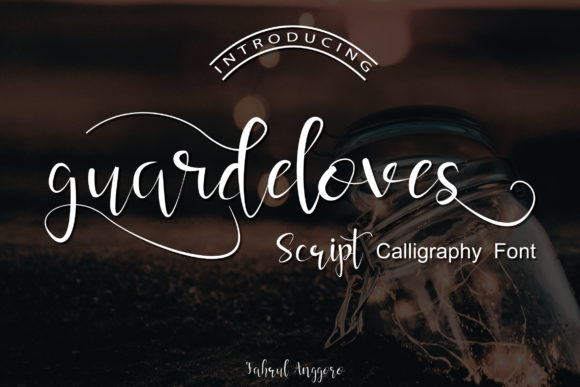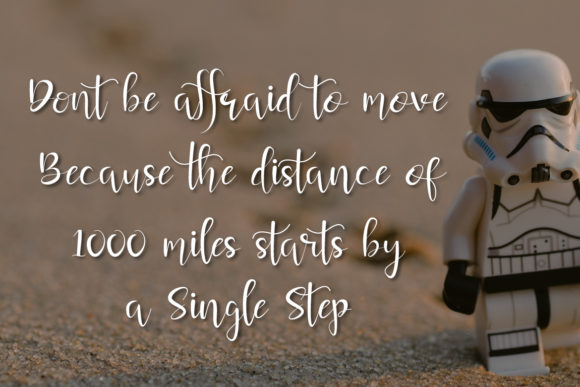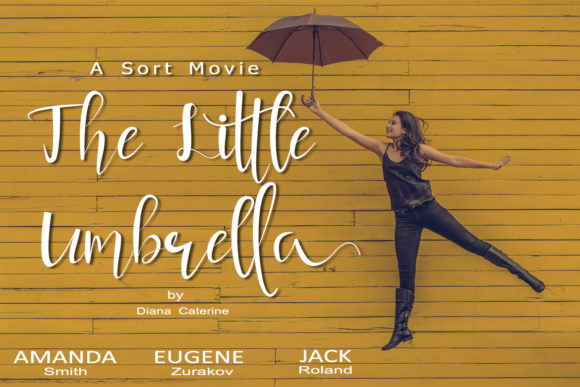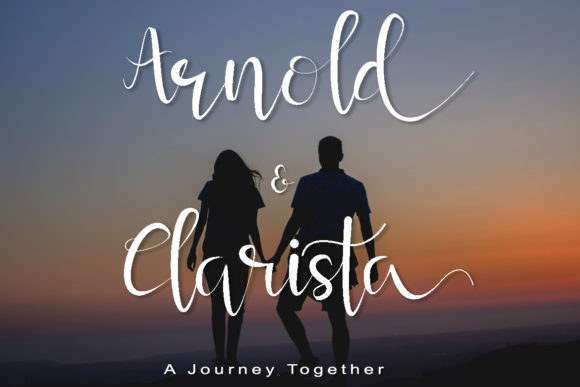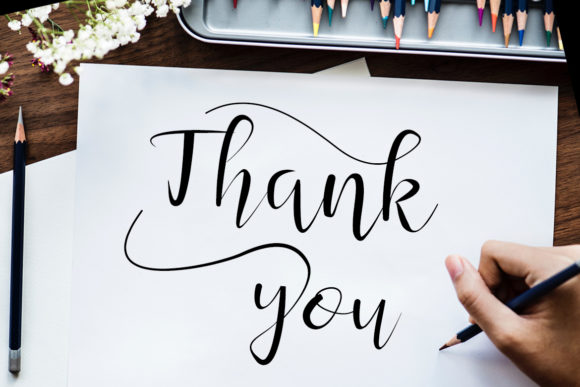
Guardeloves Script Font
About Guardeloves Script Font
The Guardeloves is an amazing calligraphy font. It has a simple, yet elegant style which is great for adding an upscale and chic look to your designs.
It’s perfect for branding, wedding invitations, signatures, quotes, movie titles, watermarks, business cards, greeting cards, logos, magazines, posters and much more.